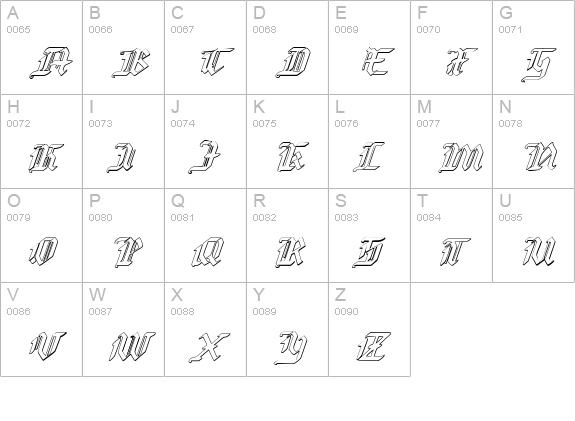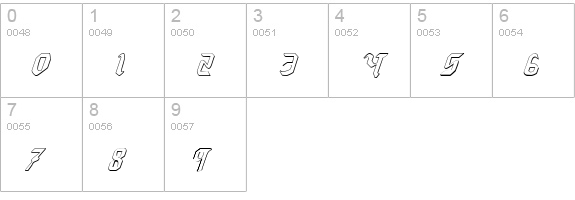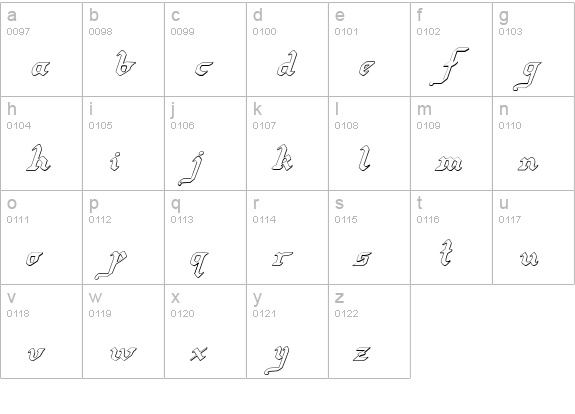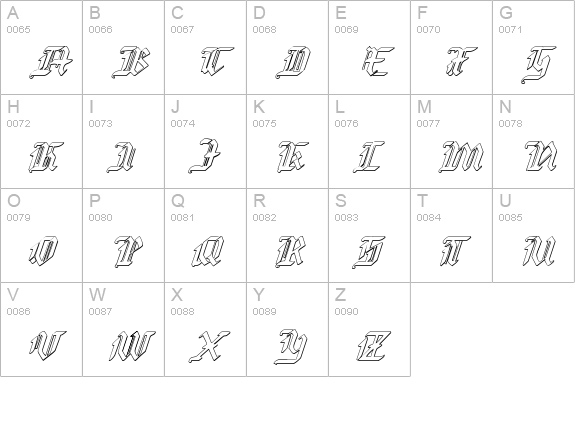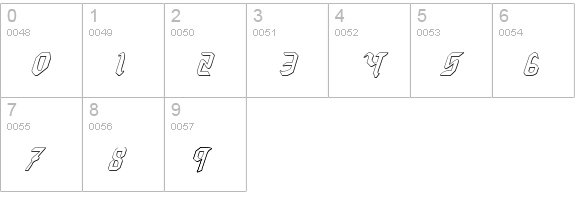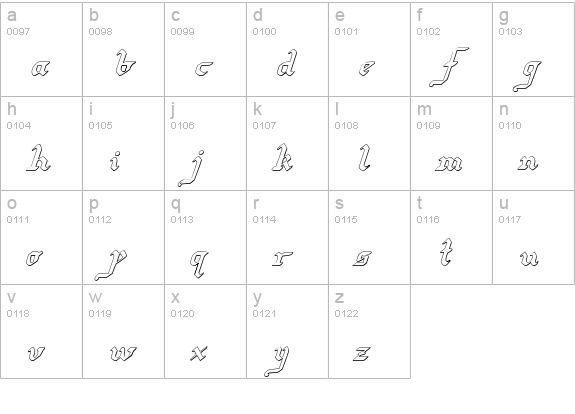
Redcoat Shadow Italic is a distinctive, italic variant in the Redcoat typeface family \xE2\x80\x94 well suited to design and typography projects.
Redcoat Shadow Italic font is a striking and elegant typeface that exudes sophistication and style. With its unique shadow effect, this font adds a touch of drama and flair to any design project. The italicized style of Redcoat Shadow lends a sense of movement and dynamism to your text, making it perfect for headings, titles, and other attention-grabbing elements. This font is available for free download at FontsMarket.com, making it easily accessible to all designers and creatives looking to add a touch of luxury to their work. Whether you're working on a branding project, a poster design, or a website layout, Redcoat Shadow Italic font is sure to make a statement and leave a lasting impression. Get your hands on this exquisite font today and elevate your designs to new heights.